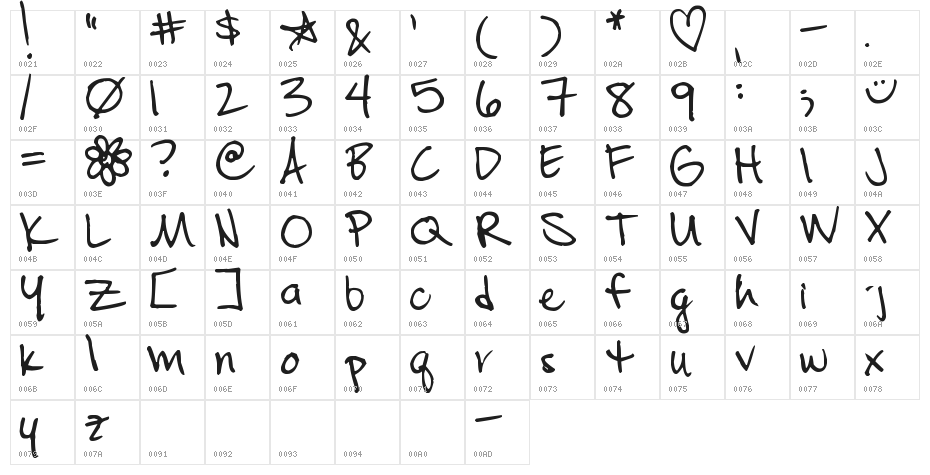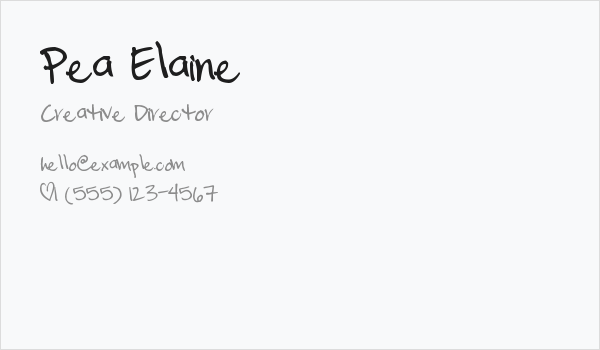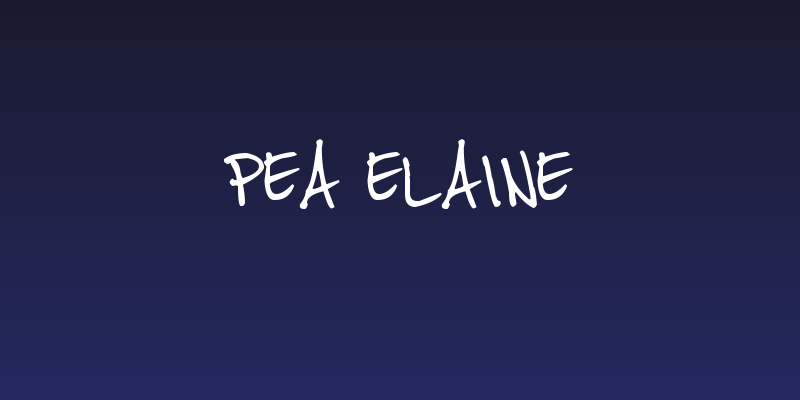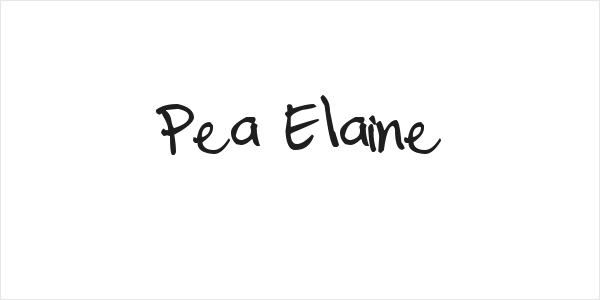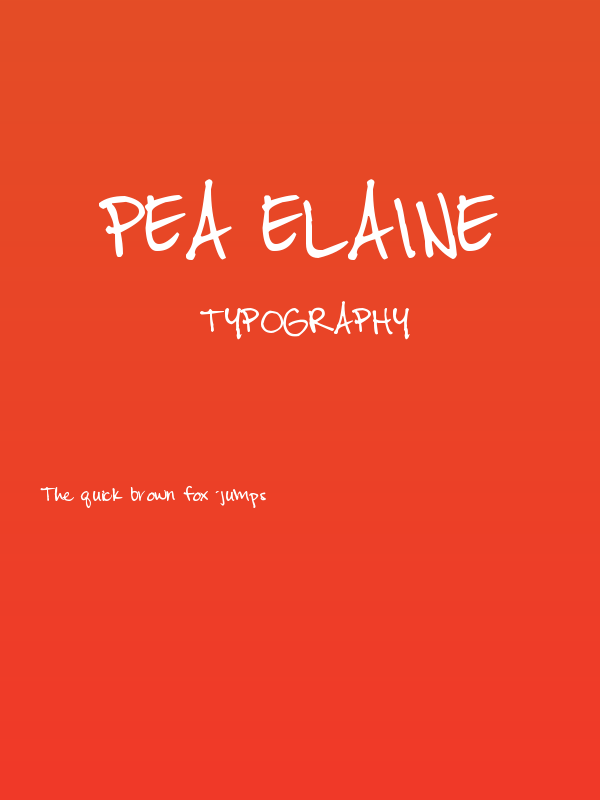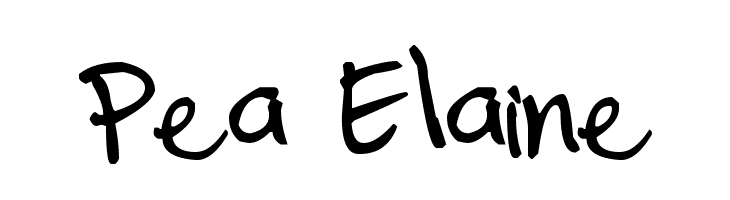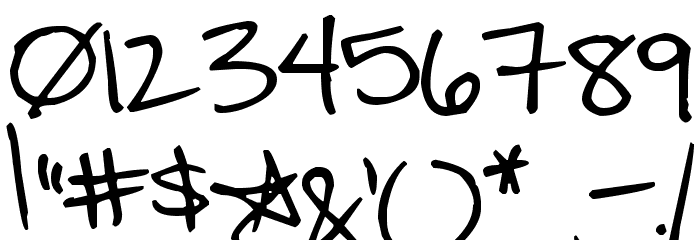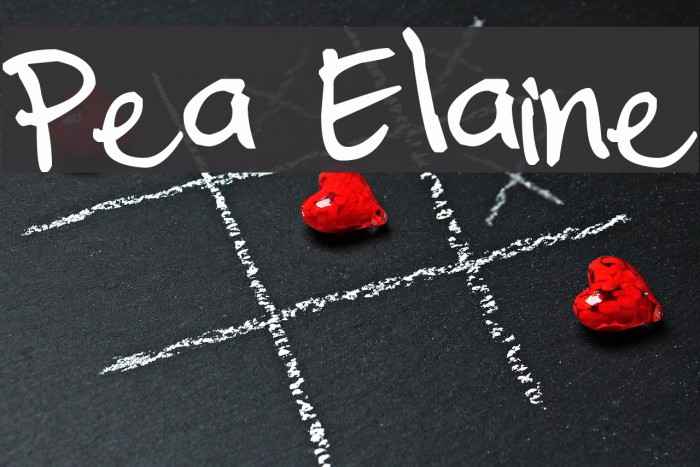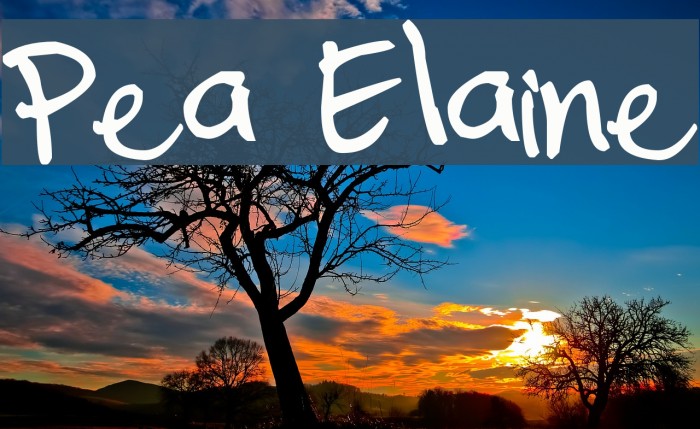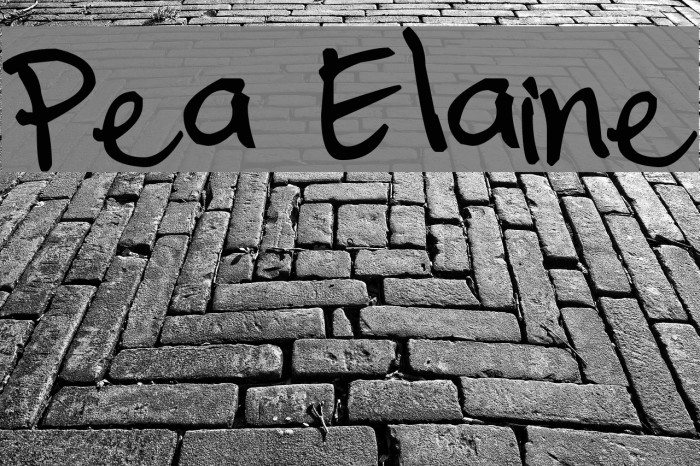
Pea Elaine Font
Pea Elaine Description
This font features a playful and casual handwritten style, characterized by its irregular strokes and informal appearance. The letters are slightly slanted, giving it a dynamic and lively feel. The uppercase and lowercase letters maintain a consistent flow, with rounded edges and varying stroke widths that add to its charm. Numbers and special characters are crafted with the same whimsical touch, making the font suitable for creative and informal projects. Its overall appearance is approachable and friendly, ideal for conveying a personal or relaxed tone.
| Overall Style | Casual, Playful |
| Use Case | Headlines, Informal text, Creative projects |
| Proposed Projects | Ideal for greeting cards, personal notes, informal invitations, and creative projects that require a personal touch. |